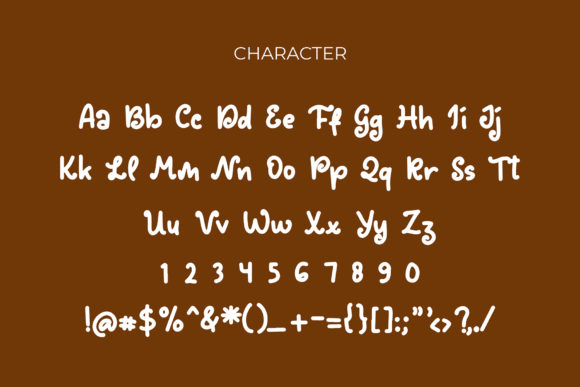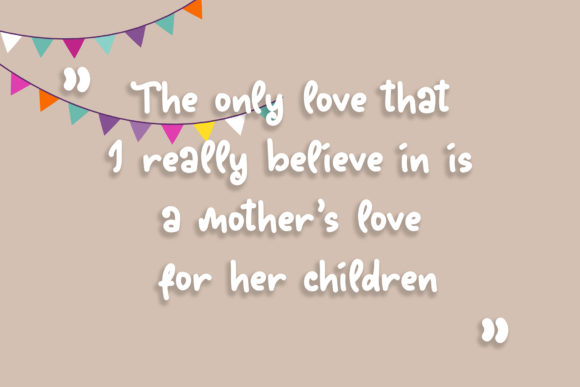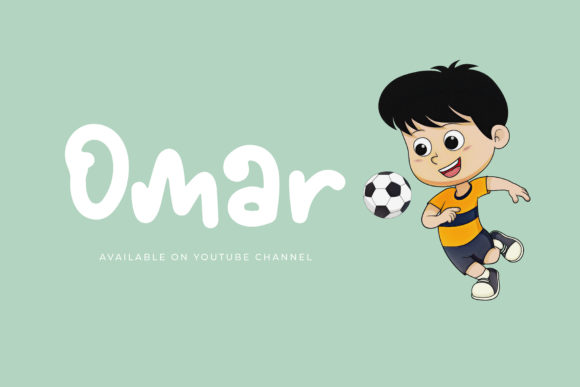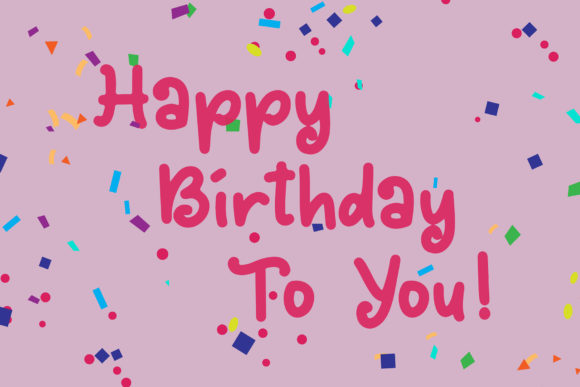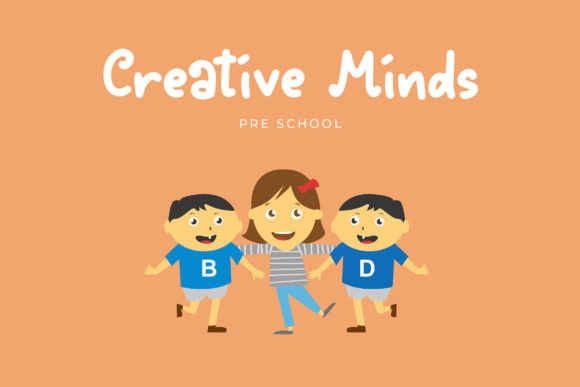
Introducing Balita Font: The Ultimate Display Font for Creative Projects
Are you looking for a font that can add a touch of excitement and playfulness to your designs? Look no further than Balita Font! This extraordinary display font is perfect for a wide range of creative projects, from branding and logos to book covers, social media posts, and advertisements. In this article, we’ll explore the features and benefits of Balita Font, and show you how to get the most out of this versatile and fun font.
What is Balita Font?
Balita Font is a unique and eye-catching display font that is designed to bring a sense of childlike wonder and playfulness to your designs. Its bold and colorful appearance makes it perfect for projects that require a fun and energetic vibe. Whether you’re working on a branding project, a book cover design, or a social media post, Balita Font is sure to grab attention and leave a lasting impression.
Key Features of Balita Font
• Unique and eye-catching design: Balita Font features a one-of-a-kind design that is sure to stand out from the crowd.
• Childlike playfulness: This font is perfect for projects that require a fun and playful touch.
• Versatile: Balita Font can be used for a wide range of projects, from branding and logos to book covers and social media posts.
Uses for Balita Font
Balita Font is a versatile font that can be used for a wide range of creative projects, including:
• Branding projects: Use Balita Font to create eye-catching logos and branding materials that will help your business stand out.
• Book cover designs: Add a touch of playfulness and excitement to your book covers with Balita Font.
• Social media posts: Use Balita Font to create fun and engaging social media posts that will grab attention and drive engagement.
• Advertisements: This font is perfect for creating eye-catching advertisements that will stand out from the crowd.
• Product packaging: Use Balita Font to add a touch of personality and playfulness to your product packaging.
• Kids and school projects: This font is perfect for kids and school projects, adding a fun and playful touch to assignments and presentations.
Tips for Using Balita Font
Here are a few tips for getting the most out of Balita Font:
• Experiment with different colors: Balita Font looks great in a variety of colors, so don’t be afraid to experiment and find the perfect hue for your project.
• Use it sparingly: While Balita Font is a fun and playful font, it can be overwhelming if used too much. Use it sparingly to add a touch of excitement to your designs.
• Pair it with other fonts: Balita Font pairs well with a variety of other fonts, so don’t be afraid to experiment and find the perfect combination for your project.
Balita Font is a unique and exciting display font that is perfect for a wide range of creative projects. Its childlike playfulness and versatility make it a great choice for designers and crafters who want to add a touch of fun and excitement to their designs. Whether you’re working on a branding project, a book cover design, or a social media post, Balita Font is sure to grab attention and leave a lasting impression. So why wait? Download Balita Font today and start creating!